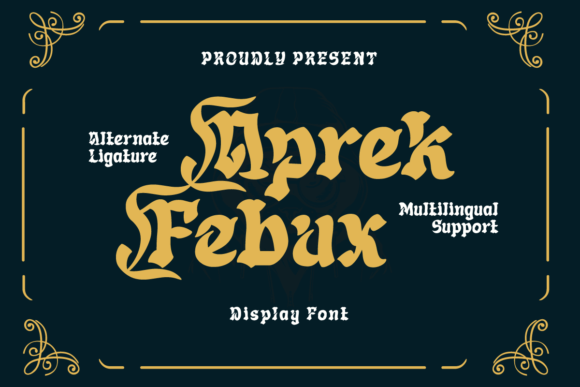
Welcome to the Vibrant World of Aprek Febux Font
Have you ever been in the middle of a design project, and suddenly, you’re struck by a creative block? You’re not alone! I recall working on a branding project for a trendy new cafe, and I was struggling to find the perfect font to capture their edgy yet elegant vibe. That’s when I stumbled upon Aprek Febux, a display typeface that adds sharpness, aggressiveness, and excitement to any project. In this article, we’ll dive into the world of Aprek Febux and explore its features, uses, and alternatives.
A Personal Review of Aprek Febux
• ✨ Unique and bold design: Aprek Febux offers a distinctive look that’s sure to make your projects stand out.
• ✅ Excellent features: This font comes with ligatures, alternates, and a range of glyphs to enhance your designs.
• 🌎 Multilingual support: Aprek Febux supports numerous languages, making it perfect for global projects.
• 💻 Versatility: This font can be used for a wide range of projects, from branding and advertising to packaging and digital media.
While Aprek Febux is an excellent font, there are a few things to keep in mind:
• ⚠️ Legibility at small sizes: Aprek Febux is designed for display purposes, so it may not be the best choice for body text or small font sizes.
• 🤔 Pairing with other fonts: Due to its bold and unique design, Aprek Febux can be challenging to pair with other fonts. Experiment with different combinations to find the perfect match.
The Backstory of Aprek Febux
Aprek Febux was designed by a team of typographers who wanted to create a font that would add excitement and energy to any project. Inspired by the world of graffiti and street art, Aprek Febux is a bold and vibrant font that’s perfect for designers who want to make a statement.
Author twinletter
Q: What is Aprek Febux?
Aprek Febux is a display typeface designed to add sharpness, aggressiveness, and excitement to your projects.
Q: What languages does Aprek Febux support?
Aprek Febux supports numerous languages, making it perfect for global projects.
Q: Is Aprek Febux suitable for body text?
No, Aprek Febux is designed for display purposes and may not be the best choice for body text or small font sizes.